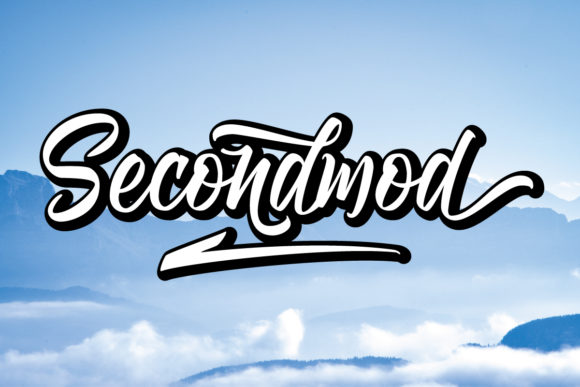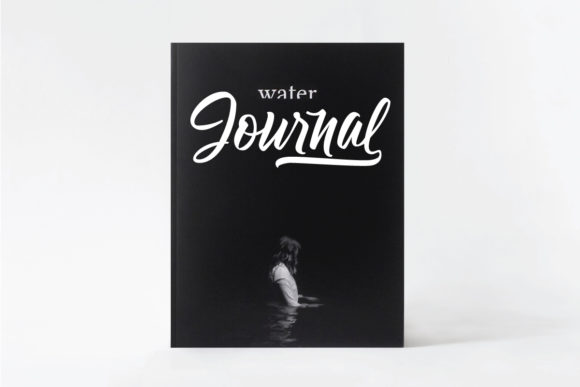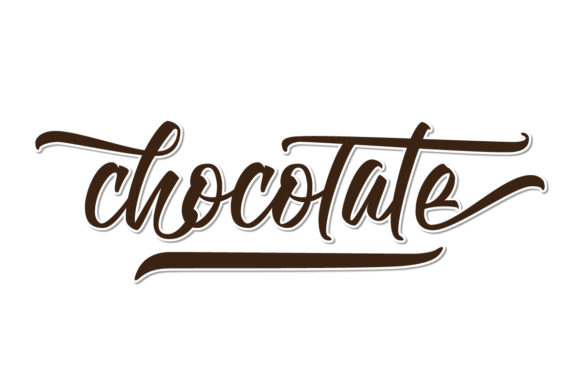
Secondmod Font
About Secondmod Font
Secondmod is a modern and delicate script font. Fall in love with its romantic charm and add it to wedding invitations, stationery, photography, social media posts, product packaging, greeting cards, and much more! This font is PUA encoded which means you can access all of the glyphs and swashes with ease!